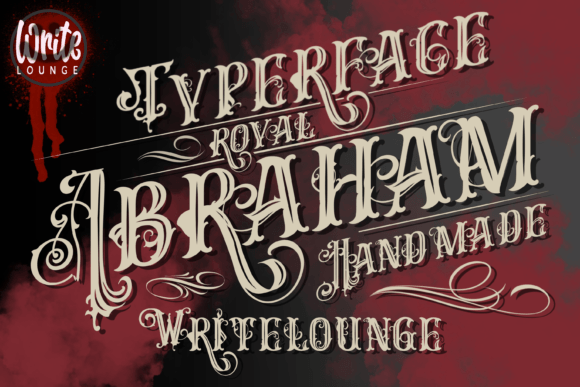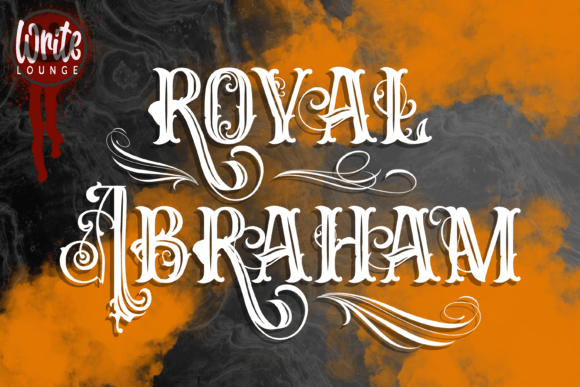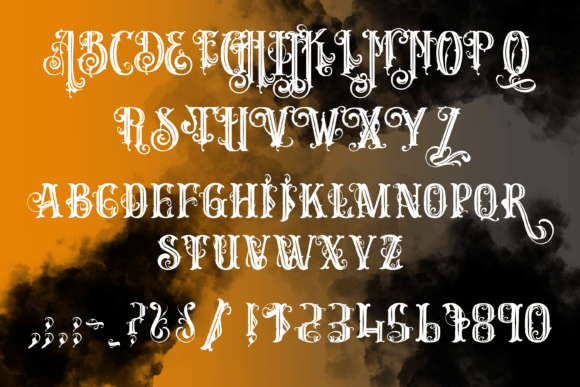
Royal Abraham Font
Royal Abraham is a royal Victorian artsy blackletter font. Its unique, stylish look is perfect for logos, posters, t-shirts, whiskey labels, and more!